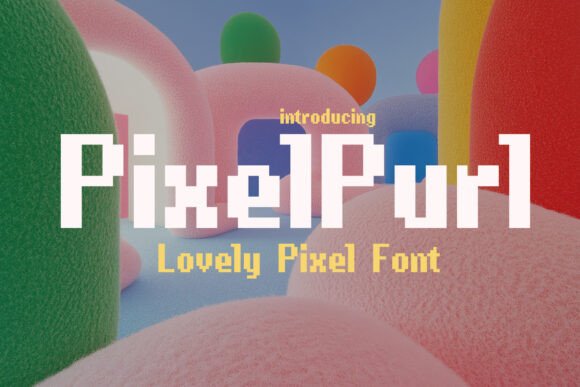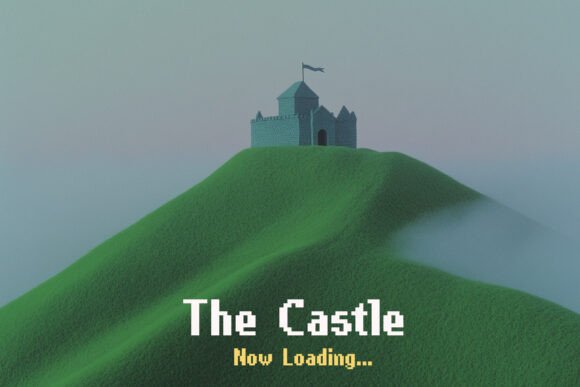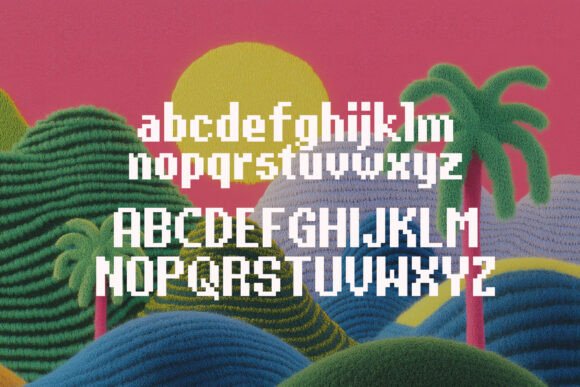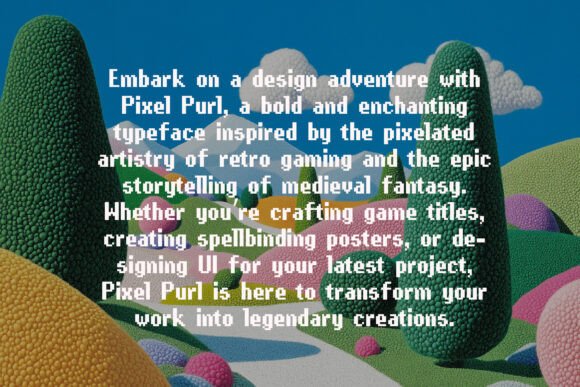
Pixel Purl Font: Bold Retro Gaming Display Font for Unique Branding!
About the Pixel Purl Font
Let us introduce you to Pixel Purl Font, where timeless design meets modern craftsmanship. Embark on a design adventure with Pixel Purl, a bold and enchanting typeface inspired by the pixelated artistry of retro gaming and the epic storytelling of medieval fantasy. Whether you’re crafting game titles, creating spellbinding posters, or designing UI for your latest project, Pixel Purl is here to transform your work into legendary creations.
Pixel Purl excels in headline applications, short impactful phrases, and branding elements where a bold, retro aesthetic is desired. Its unique character shines in posters, game titles, and packaging design for products targeting a nostalgic or fantasy-themed audience. However, its highly stylized forms make it unsuitable for body text or UI elements requiring high readability. Long paragraphs set in Pixel Purl would be difficult to read.
For effective pairings, consider pairing Pixel Purl with a clean sans-serif like Montserrat for contrast and readability in supporting text. Alternatively, a classic serif like Garamond can add a touch of sophistication and balance the playful energy of Pixel Purl. Avoid pairing it with other highly decorative or overly stylized fonts to prevent visual clutter.
The overall personality of Pixel Purl is bold, playful, and slightly nostalgic, evoking a sense of retro adventure and fantasy. It’s ideal for projects that require a strong visual presence and a touch of whimsical charm.
Pixel Purl Font Example